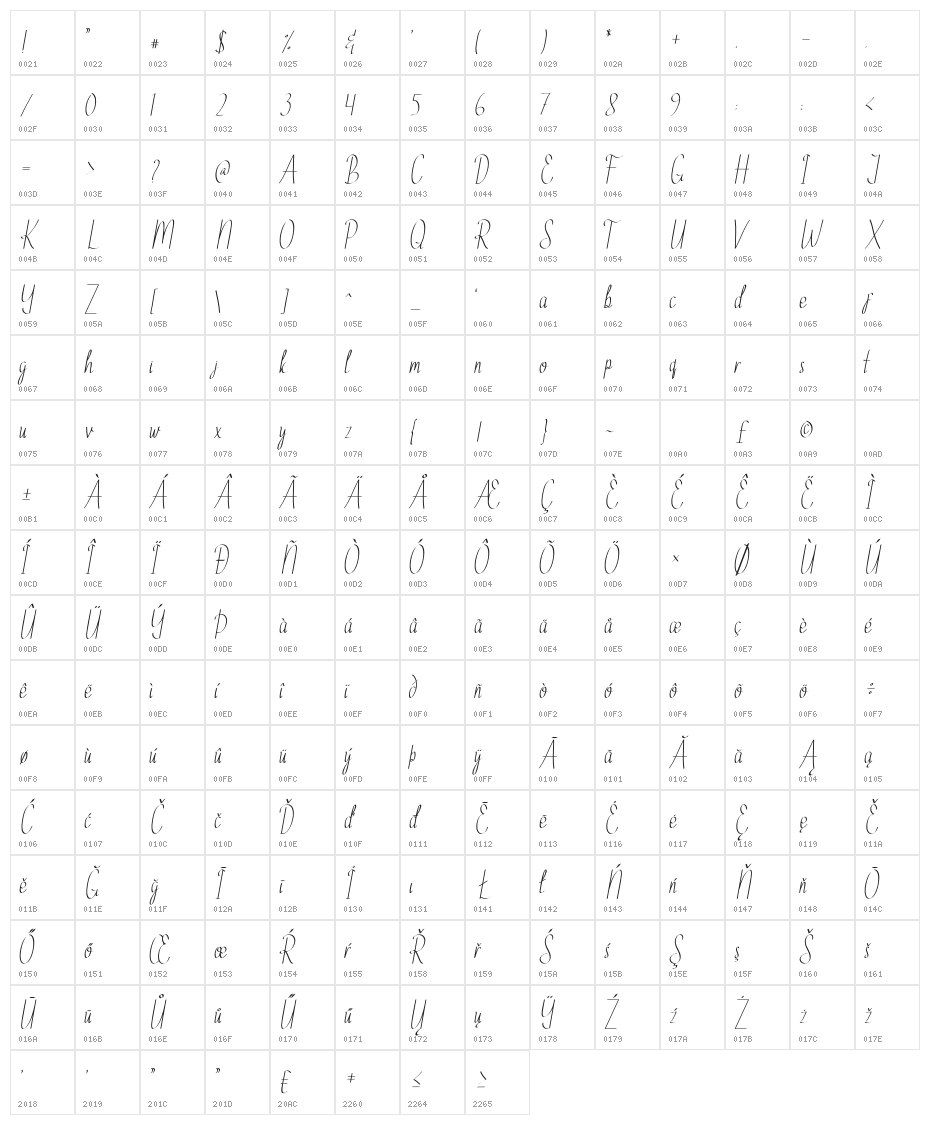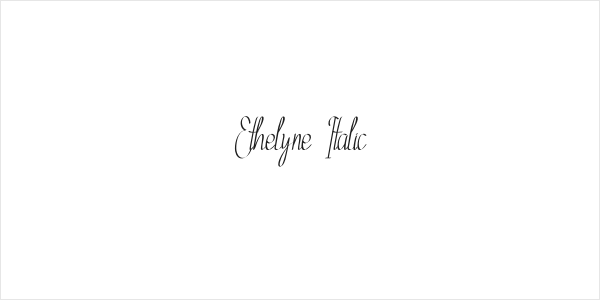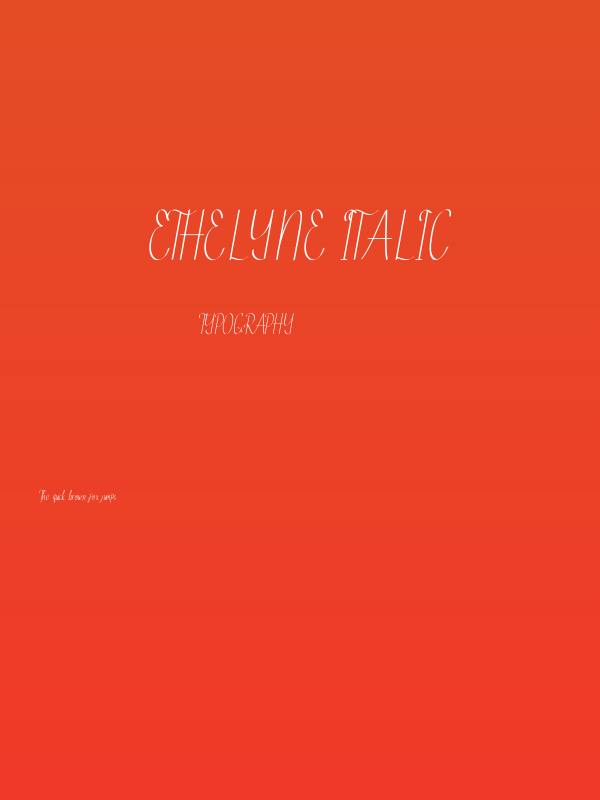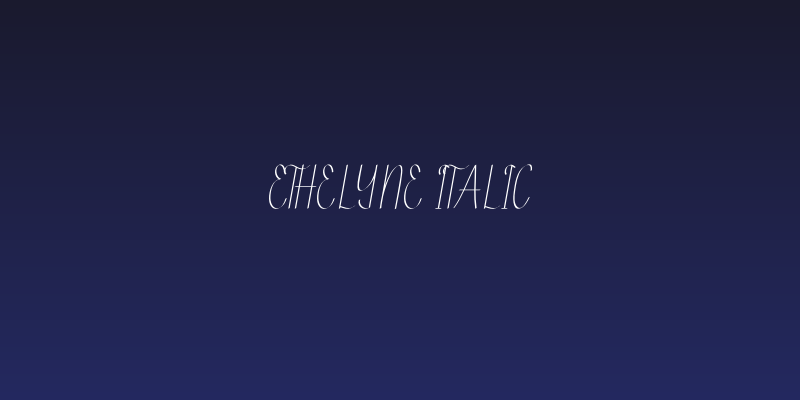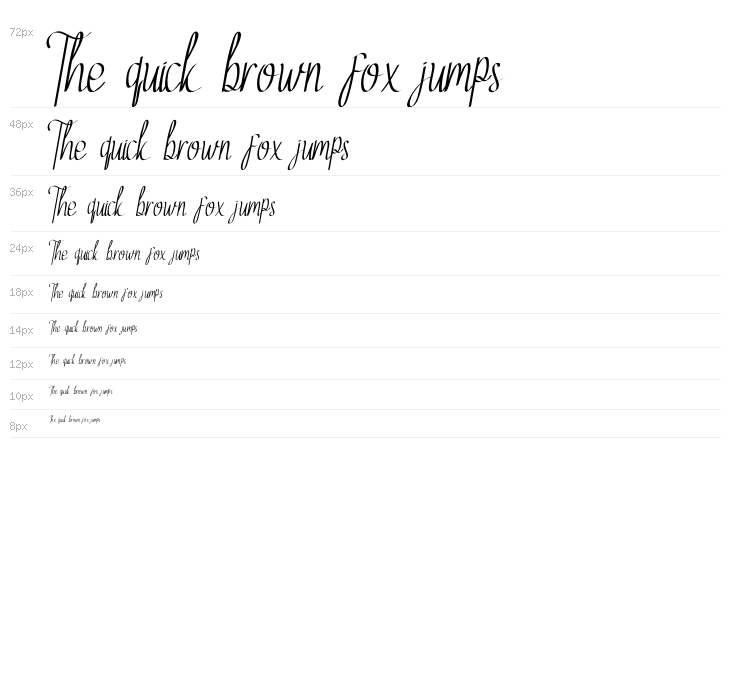
Ethelyne Italic Font
Ethelyne Italic Description
This font features a sophisticated and elegant script style with a distinct italic slant. The characters are elongated and gracefully curved, giving them a fluid and dynamic appearance. The uppercase letters are tall and slender, while the lowercase letters maintain a consistent flow with subtle variations in stroke thickness. The numerals are designed to complement the overall style, maintaining the same elegant curves. Special characters are thoughtfully integrated, enhancing the font's versatility. The font's design is ideal for creating a refined and stylish look, suitable for various creative applications.
Overall StyleElegant
Use CaseLogos, Invitations, Branding
Proposed ProjectsIdeal for wedding invitations, elegant branding, fashion magazines, and luxury product packaging.